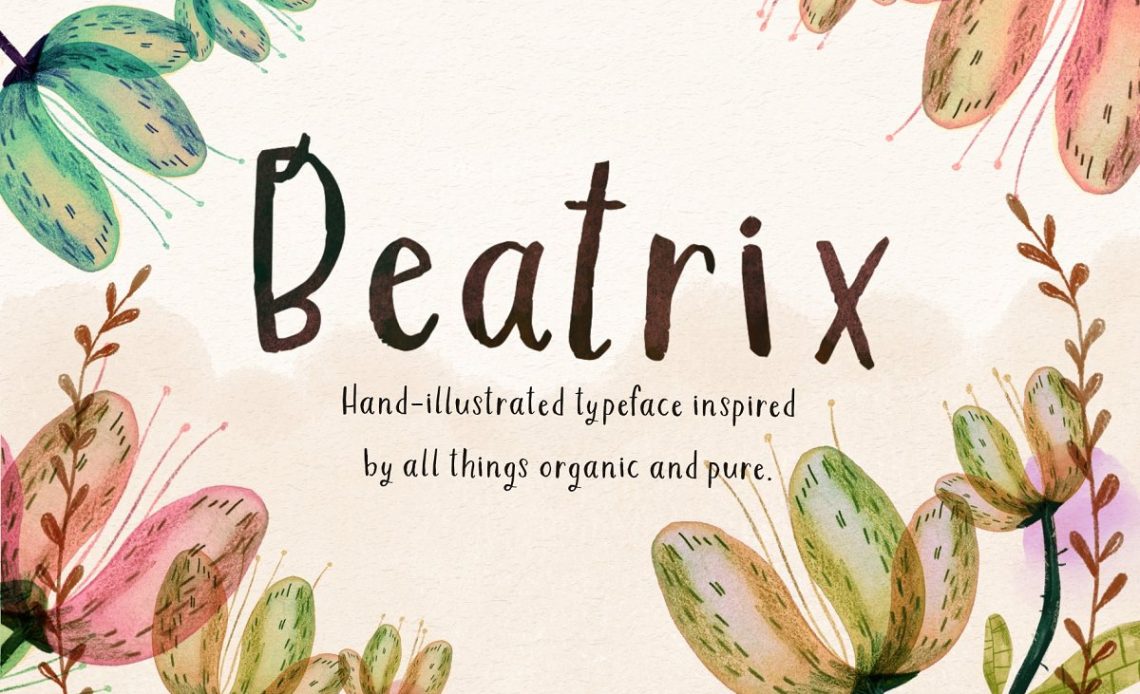
Introducing Beatrix Illustrated Typeface, a captivating and enchanting font collection that will transport you to a world of imagination and creativity. Created by the talented Shelly Laslo, this typeface is a homage to the iconic children's book author and illustrator, Beatrix Potter.
Beatrix Illustrated Typeface is not your ordinary font family. It exudes a playful and eccentric charm, drawing inspiration from the magical tales of faraway lands that captivate both young and old. With its whimsical design, this typeface adds a touch of wonder and nostalgia to any project.
The Beatrix collection features two remarkable versions: Beatrix and Beatrix Plain. Each version has its own unique personality and purpose. Beatrix Plain is perfect for running text, offering exceptional legibility and readability. It ensures that your words flow effortlessly, making it an ideal choice for long paragraphs or body text.
On the other hand, Beatrix is the true star of the show. Designed for display purposes, it demands attention and steals the spotlight. Its intricate details and artistic flair make it a perfect fit for headlines, titles, logos, and any design element that needs to make a bold statement. With Beatrix, your words will come alive, captivating the eyes and stirring emotions.
This typeface is more than just a collection of beautiful letters. It is an invitation to unleash your creativity and bring your ideas to life. Whether you're working on a children's book, a branding project, or a whimsical website design, Beatrix Illustrated Typeface will elevate your creations to new heights.
Immerse yourself in the world of Beatrix and watch as your designs come alive with a touch of magic. Let your imagination run wild, and let Beatrix be your guide. With its versatility and captivating charm, it's the perfect companion for anyone looking to add a sprinkle of enchantment to their work.